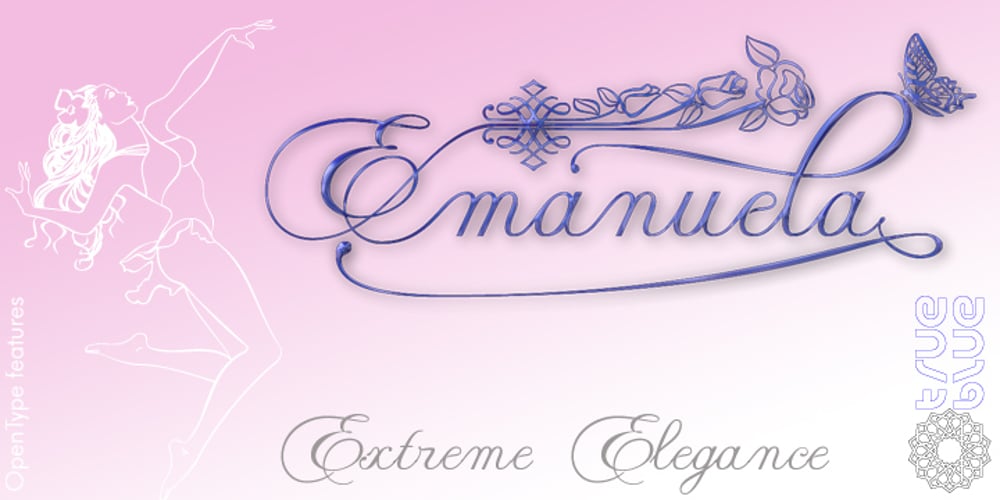
Emanuela Font Family was designed by Gianni Marcolongo and published by TrueBlue. Emanuela contains 1 styles and family package options. An elegant calligraphic font, ideal for any defined artworks. This font has an impressive set of characters and alternative forms and extensive set of OpenType features.